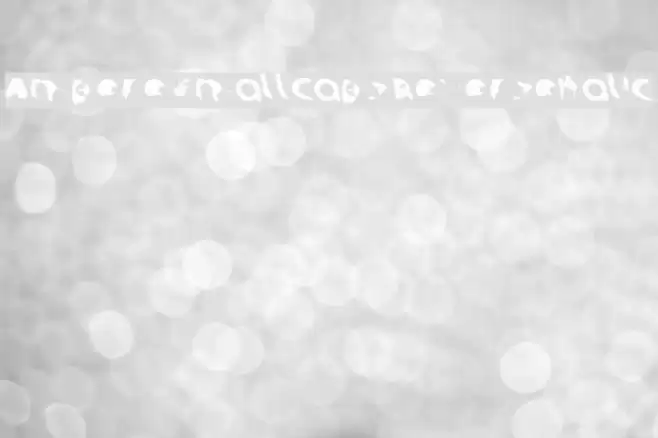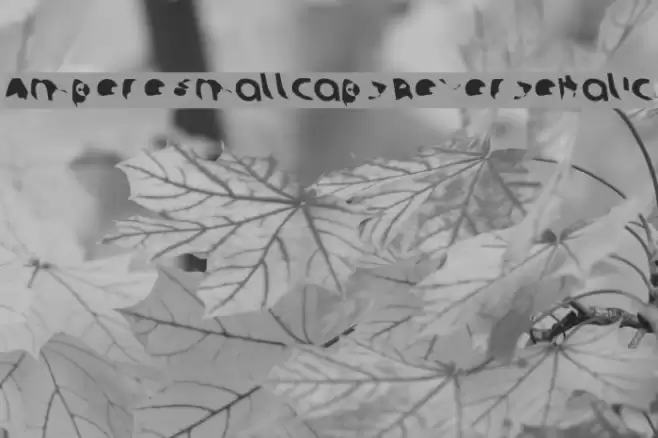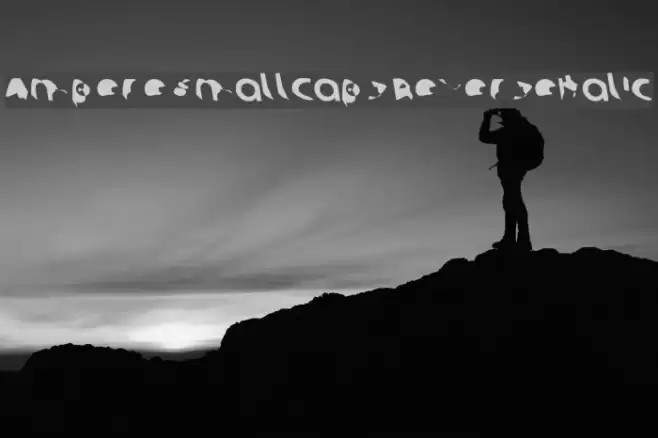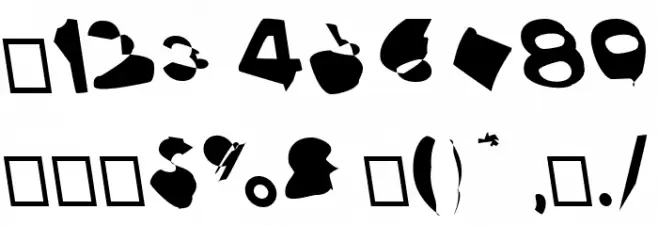
Ampere SmallCaps ReverseItalic Font
Ampere SmallCaps ReverseItalic Description
This font features a highly stylized and abstract design, with each character appearing as if it has been fragmented or shattered. The uppercase and lowercase letters maintain a consistent theme of sharp angles and irregular shapes, creating a dynamic and edgy appearance. The numbers and special characters follow the same design principles, contributing to a cohesive yet unconventional look. This font's unique style makes it stand out, with a bold presence that commands attention. The reverse italic slant adds to its distinctiveness, giving it a sense of movement and energy.
A bold, abstract font with fragmented characters and a reverse italic slant from Uncategorized fonts.
- Proposed Projects: Ideal for avant-garde posters, album covers, or any project seeking a modern, edgy aesthetic.